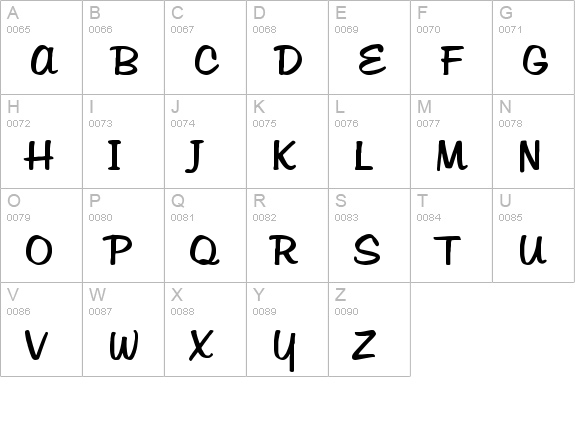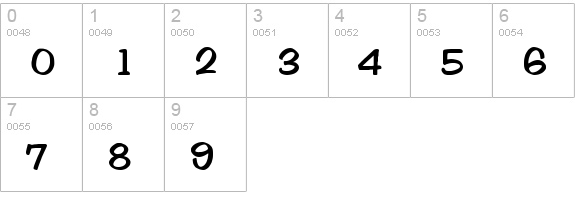
Martina Regular is the standard, neutral variant in the Martina typeface family \xE2\x80\x94 well suited to general body text, paragraphs, and standard typographic work.
Introducing Martina Regular, a versatile and elegant font that effortlessly captures attention with its timeless appeal. This meticulously crafted typeface is perfect for adding a touch of sophistication to any design project, whether it be for branding, editorial, or web purposes. Martina Regular strikes the perfect balance between classic and contemporary, combining delicate curves with clean lines to create a harmonious and legible composition. Its sleek and refined letterforms exude a sense of professionalism and refinement, making it an ideal choice for corporate presentations, business cards, and signage. This font's versatility shines through in its extensive character set, which includes a wide range of accented characters, punctuation marks, and symbols. With Martina Regular, you have the freedom to express your creativity and bring your ideas to life with ease. One of the best things about Martina Regular is that it is free to download at FontsMarket.com. Yes, you heard it right – this exceptional font is available at no cost, allowing you to enjoy its beauty and functionality without any limitations. FontsMarket.com is a trusted source for high-quality fonts, ensuring that you can download Martina Regular with confidence. So, whether you're a professional designer looking to enhance your projects or an enthusiast seeking to elevate your creative endeavors, Martina Regular is the perfect font to add to your collection. Its timeless elegance, versatility, and the fact that it is freely available make it a must-have for any design enthusiast. Download Martina Regular today and unlock a world of endless possibilities.